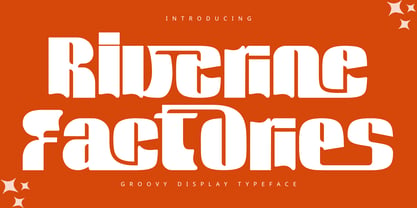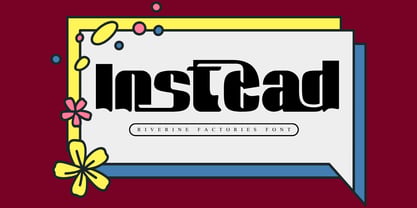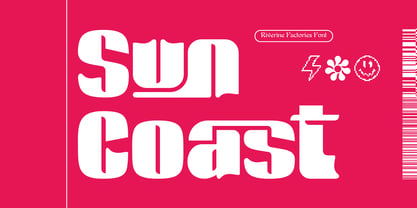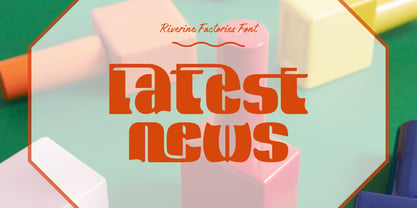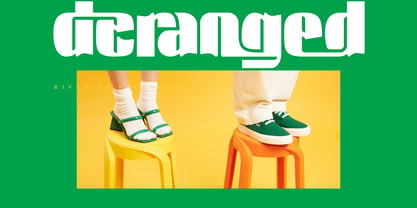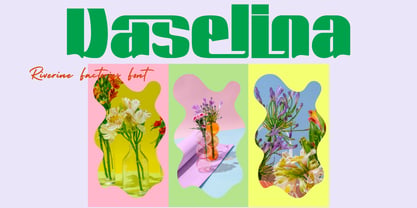
Riverine Factories
by 177Studio
The Riverine Factories Font Family was designed by 177Studio and published by 177Studio. Riverine Factories contains 2 styles and family package options. More about this family
Riverine Factories - Bold Retro Font – Retro 70s Psychedelic & Wavy Chunky Display Font, retro-psychedelic display font that masterfully fuses 1970s groovy typography with organic, liquid wave serifs. Defined by its massive blocky weight, overarching stroke bridges, and scalloped fluid baselines, this typeface delivers an irresistible vintage funk charm with modern graphic impact.